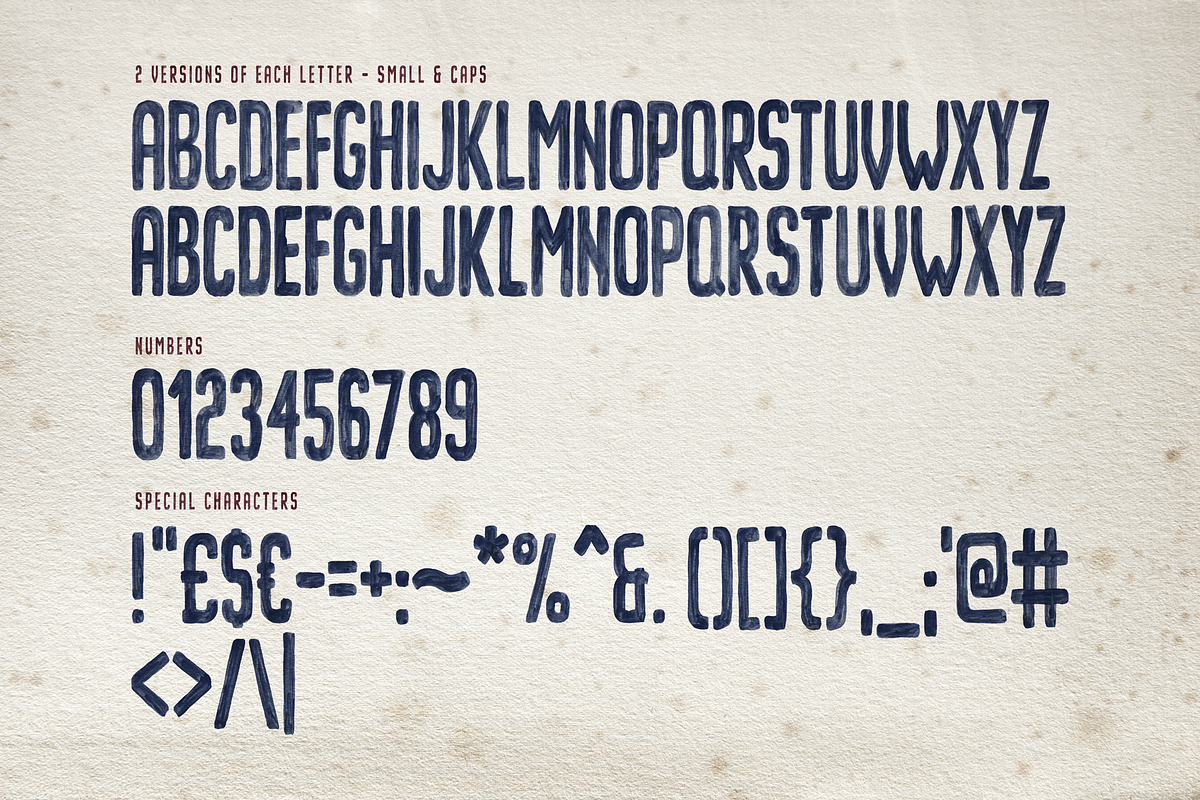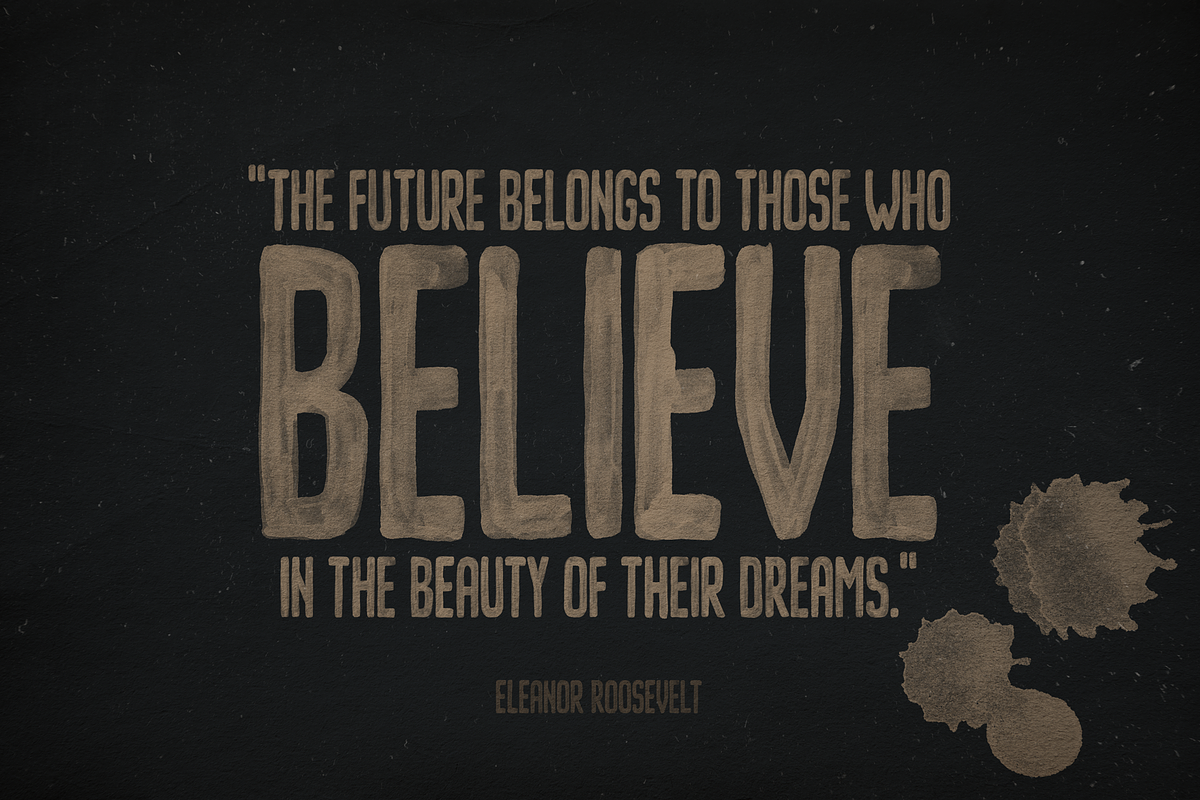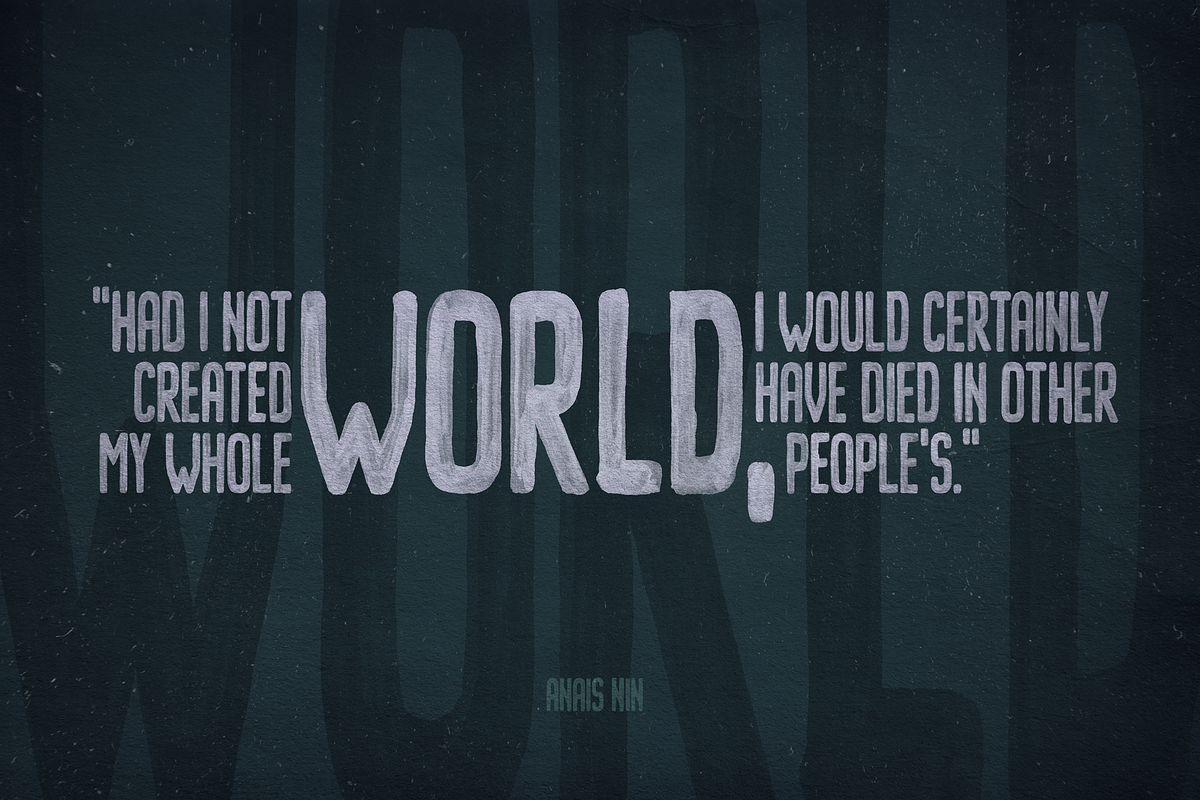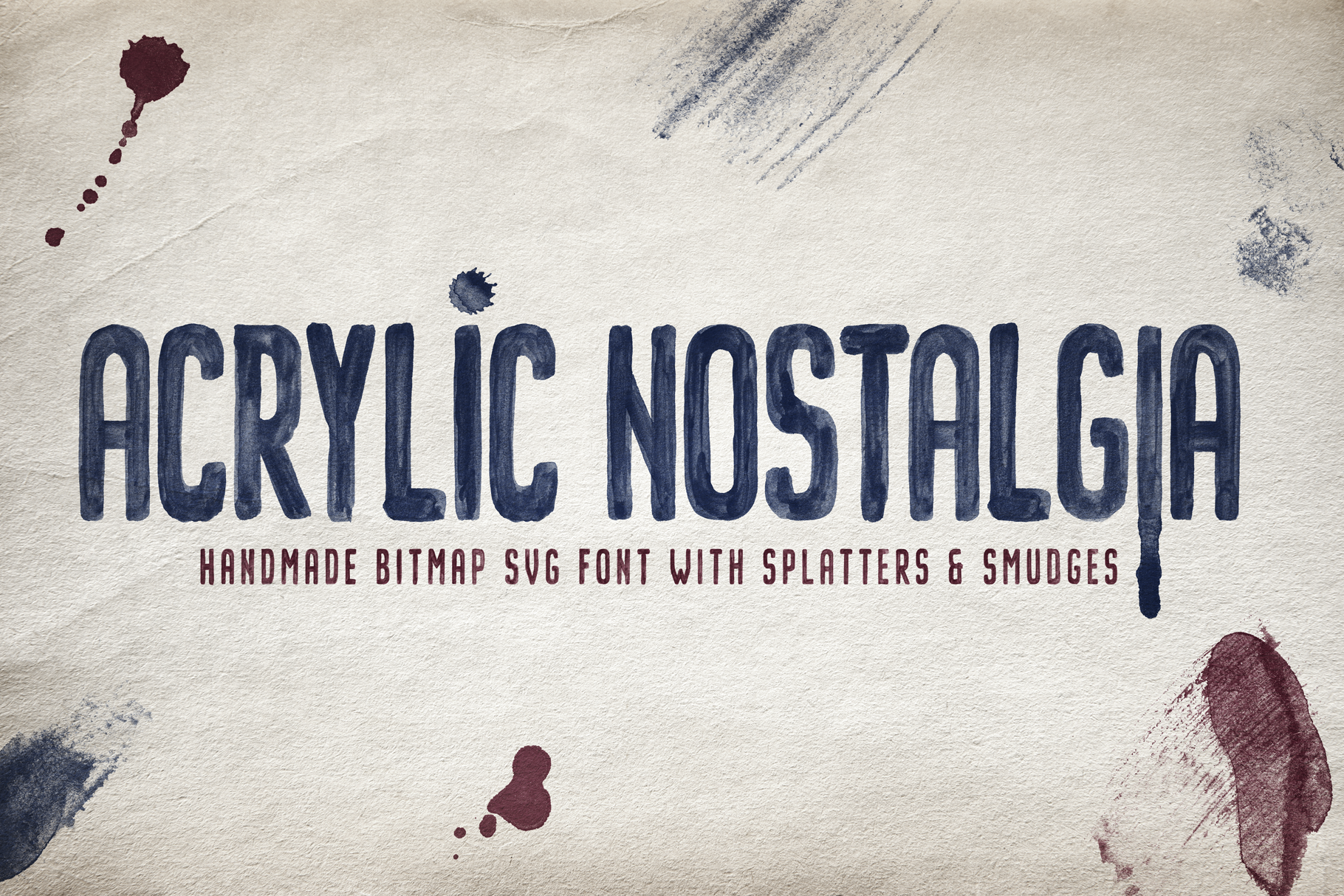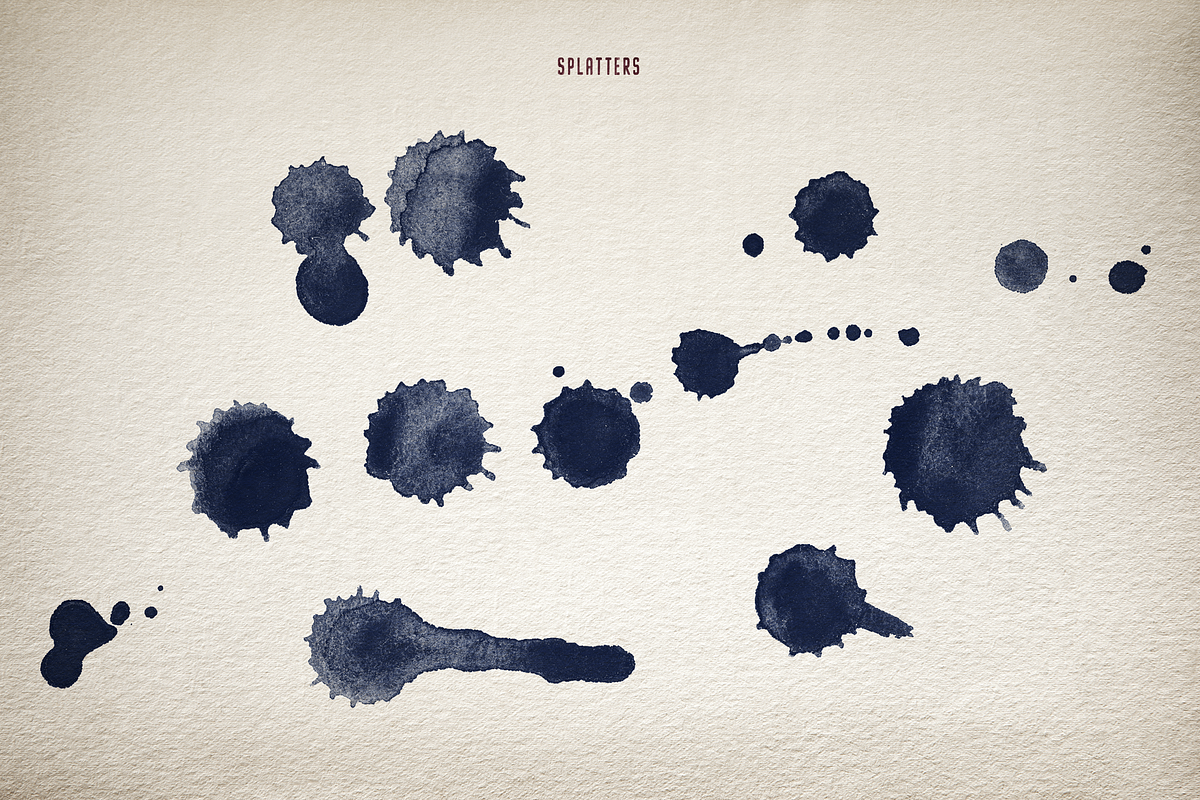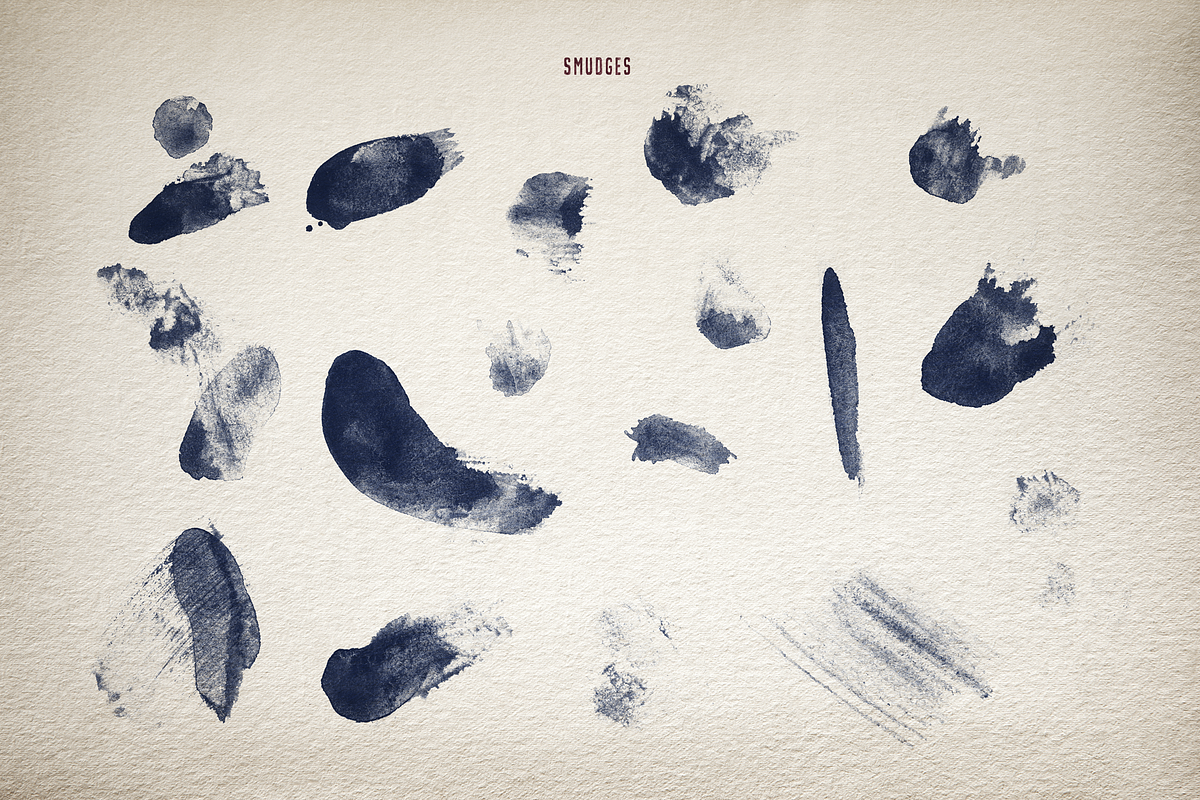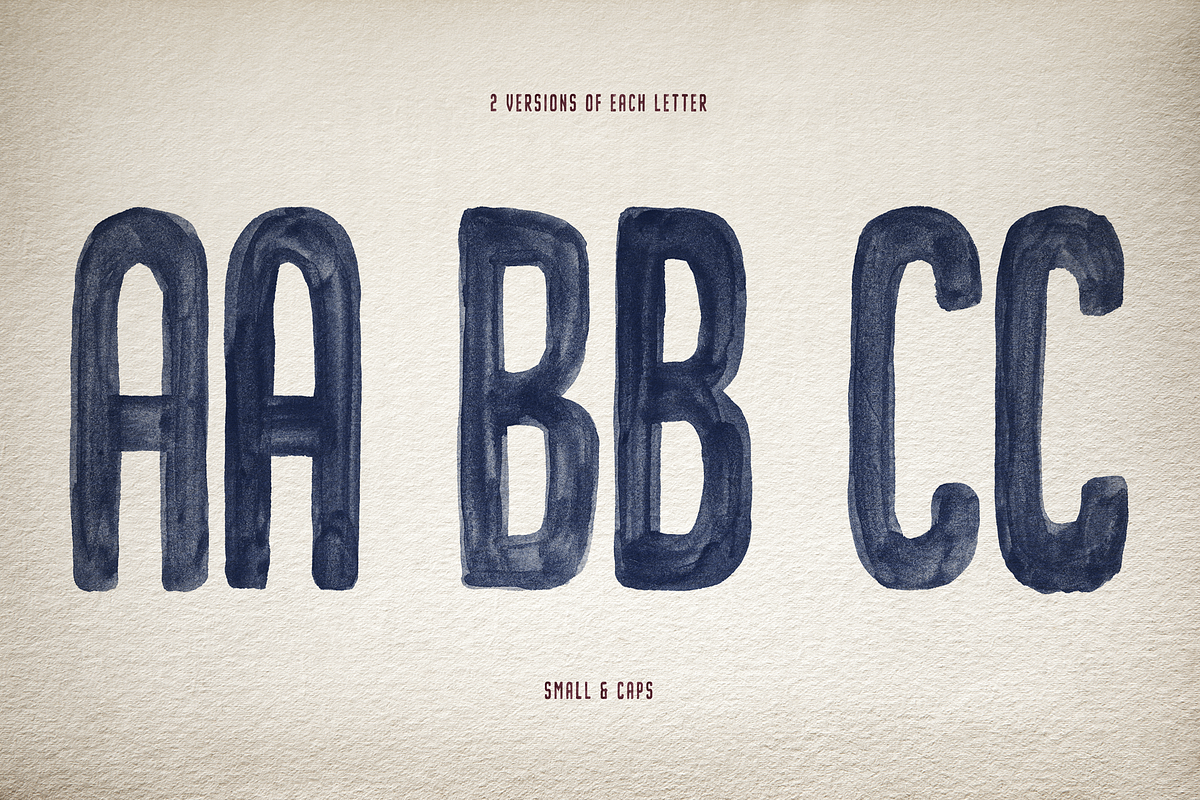
Acrylic Nostalgia SVG Font
Acrylic Nostalgia SVG Font is a handmade SVG bitmap font created using watercolour painting technique with a vintage look. An all-caps font with two versions of each letter. Just press Shift to type a different version of each letter. Each letter has been carefully crafted to resemble hand-painted brush strokes, giving it a unique and artistic feel.
- 26 letters x2
- 10 numbers
- 34 symbols
- smudges and splatters